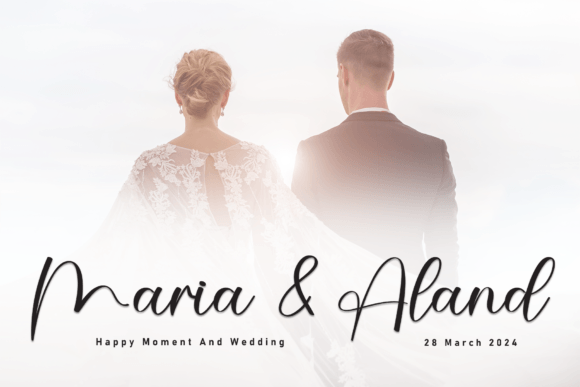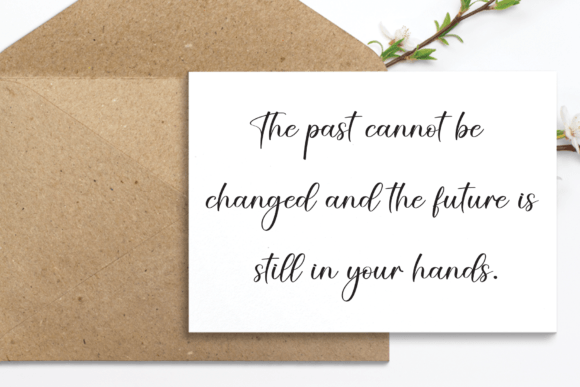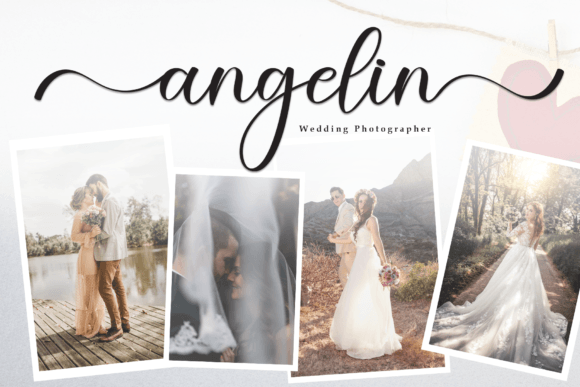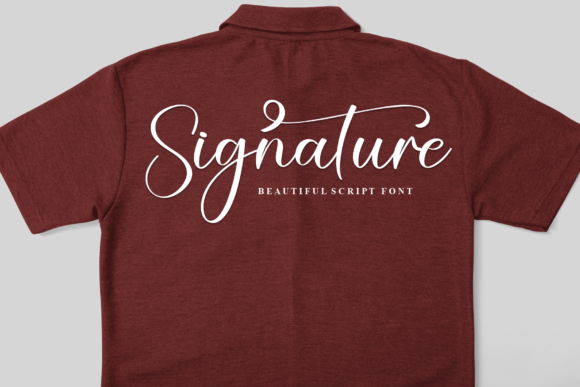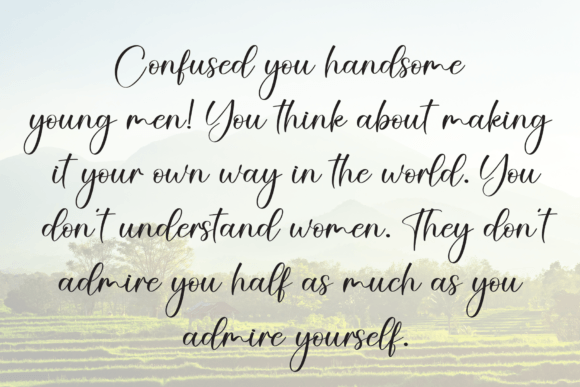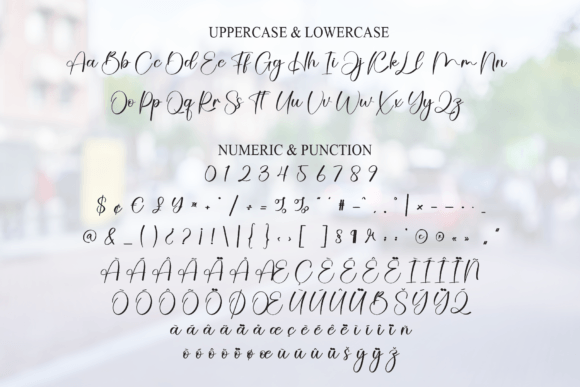
Introducing Amsterdam Font: Elevate Your Designs with Elegance and Sophistication
In the world of typography, few fonts capture the essence of luxury and sophistication as effortlessly as the Amsterdam Font. This elegant handwritten font is designed to bring a touch of class and refinement to any design project, making it a must-have for designers and crafters seeking to elevate their work. With its flowing curves and stylish lettering, Amsterdam Font exudes a timeless and upscale feel that is sure to leave a lasting impression.
The Characteristics of Amsterdam Font
Amsterdam Font is characterized by its beautiful, flowing curves and carefully crafted lettering. Each letter is meticulously designed to create a sense of fluidity and movement, giving the font a dynamic and elegant feel. The font’s stylish and refined aesthetic makes it perfect for use in a variety of design projects, from luxury branding and high-end packaging to elegant stationery and stylish signage.
Why Choose Amsterdam Font?
There are many reasons why Amsterdam Font stands out from the crowd. Here are just a few:
- Timeless Elegance: Amsterdam Font’s classic, elegant design ensures that it will never go out of style. Its timeless appeal makes it a great choice for designers who want to create work that will stand the test of time.
- Luxury Appeal: The font’s sophisticated and refined aesthetic makes it perfect for luxury branding and high-end design projects.
- Versatility: Amsterdam Font is highly versatile and can be used in a wide range of design projects, from digital designs to print materials.
- Ease of Use: The font is easy to read and works well in a variety of sizes, making it perfect for use in both body text and headlines.
Using Amsterdam Font in Your Designs
Amsterdam Font is incredibly easy to use and can be incorporated into your designs in a variety of ways. Here are a few ideas to get you started:
- Luxury Branding: Use Amsterdam Font to create elegant and sophisticated branding for high-end clients.
- Wedding Stationery: Add a touch of elegance to wedding stationery, such as invitations and programs, with Amsterdam Font.
- Packaging Design: Use Amsterdam Font to create luxurious and eye-catching packaging for high-end products.
- Signage: Create stylish and elegant signage with Amsterdam Font, perfect for upscale businesses and events.
Tips for Getting the Most Out of Amsterdam Font
Here are a few tips for getting the most out of Amsterdam Font:
- Use it Sparingly: Amsterdam Font is a statement font and works best when used sparingly. Use it for headlines or key messaging to create a lasting impression.
- Pair it with Other Fonts: Amsterdam Font pairs well with a variety of other fonts. Experiment with different combinations to find the perfect look for your design.
- Experiment with Colors: Amsterdam Font works well in a variety of colors. Experiment with different hues and shades to find the perfect look for your design.
Amsterdam Font is a truly exceptional font that is sure to elevate any design project. Its elegant, sophisticated aesthetic makes it perfect for luxury branding, high-end packaging, and stylish signage. With its timeless appeal and versatility, Amsterdam Font is a must-have for designers and crafters seeking to add a touch of class and refinement to their work.